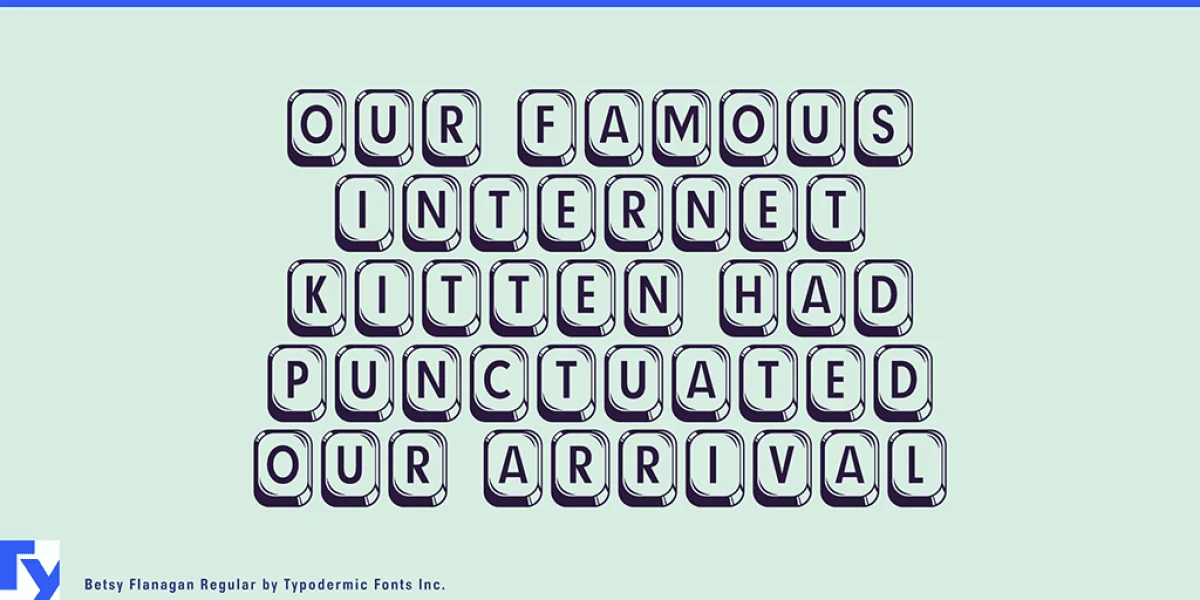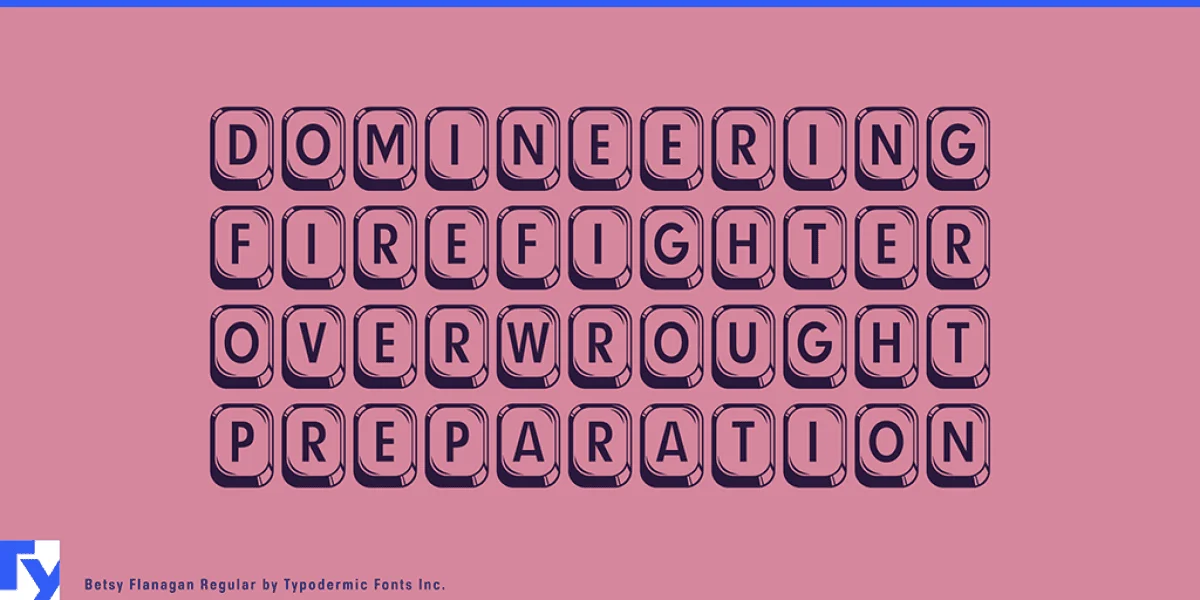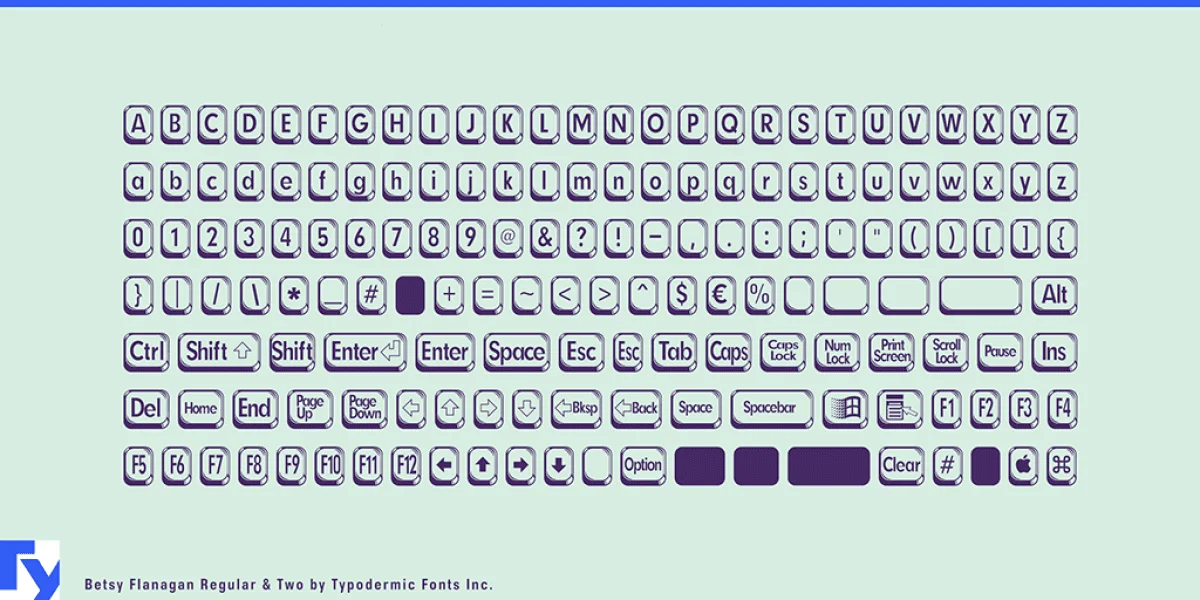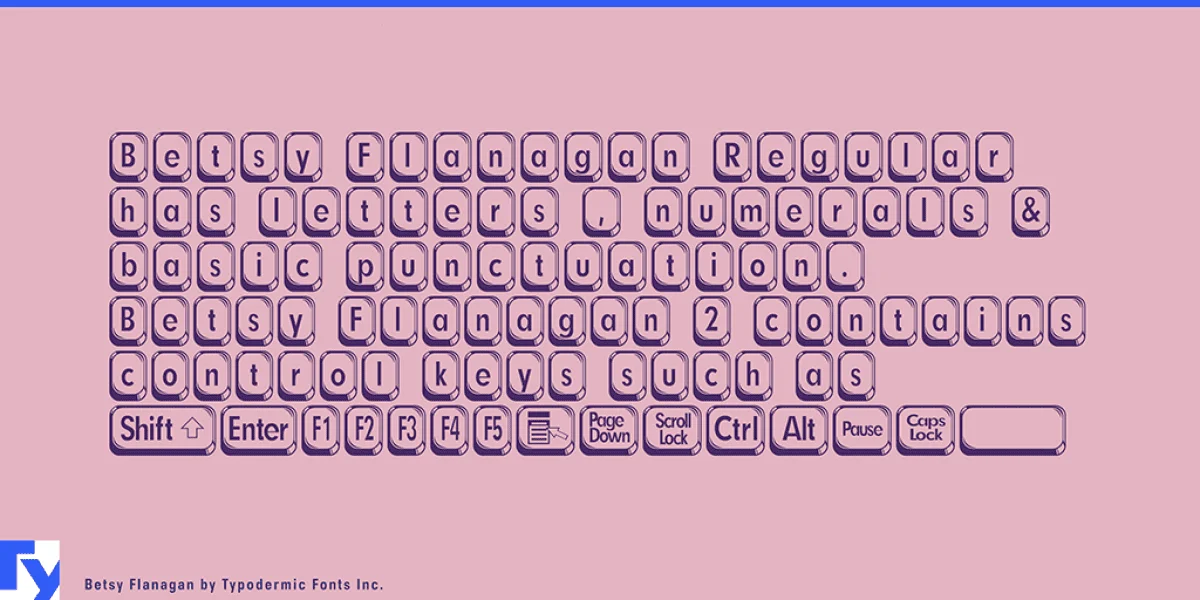
Betsy Flanagan is a display font which looks like computer keyboard keys. Betsy Flanagan 2 includes control characters such as shift, enter, control, escape etc.